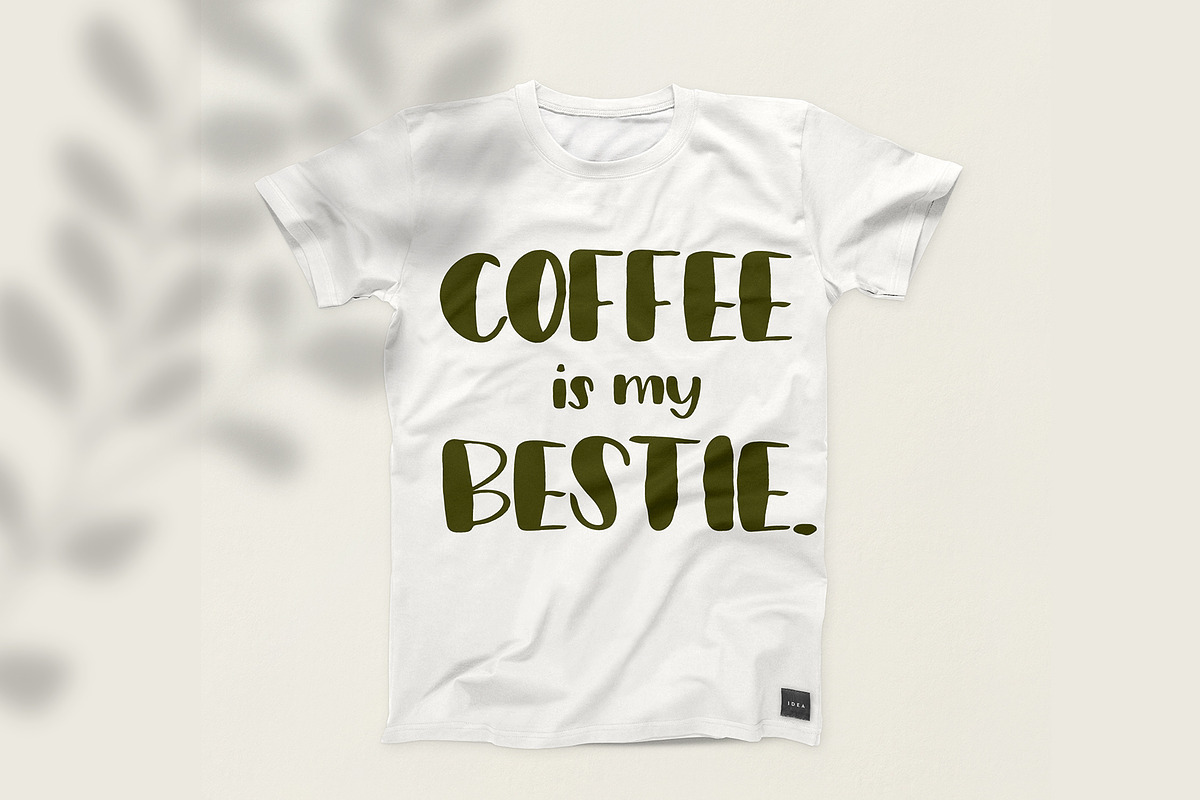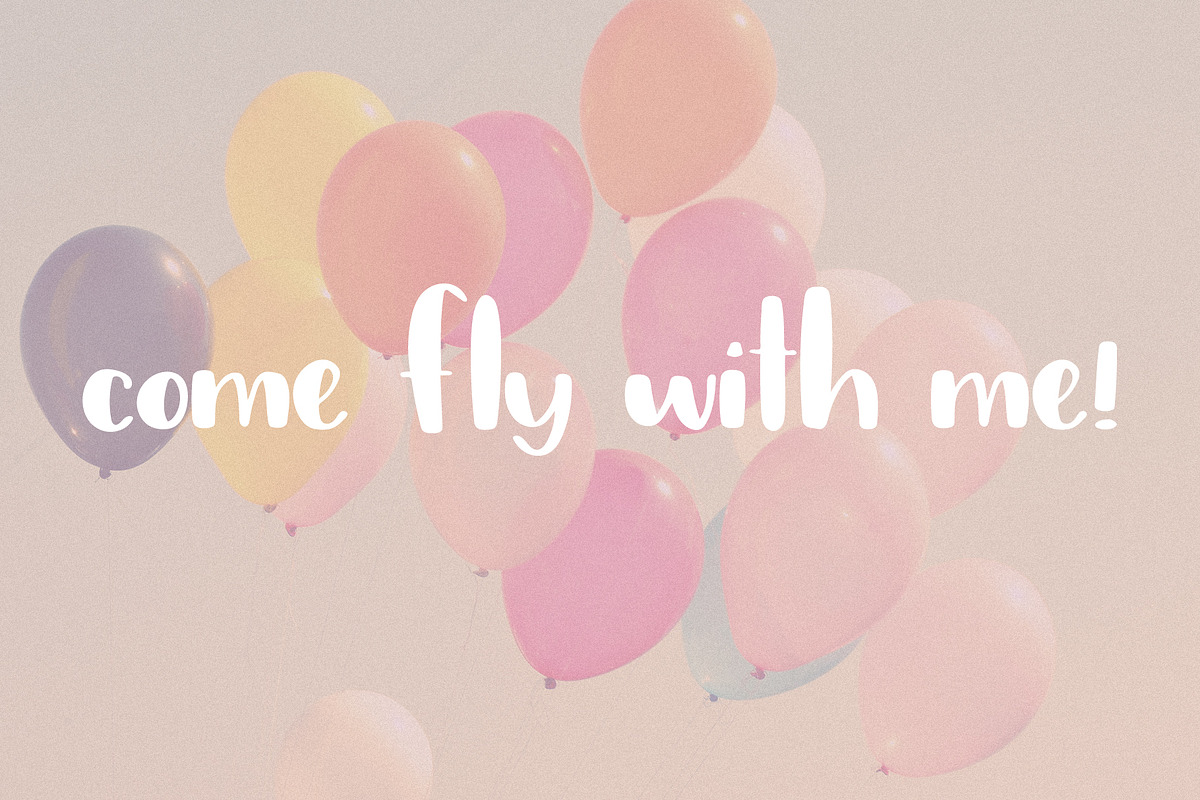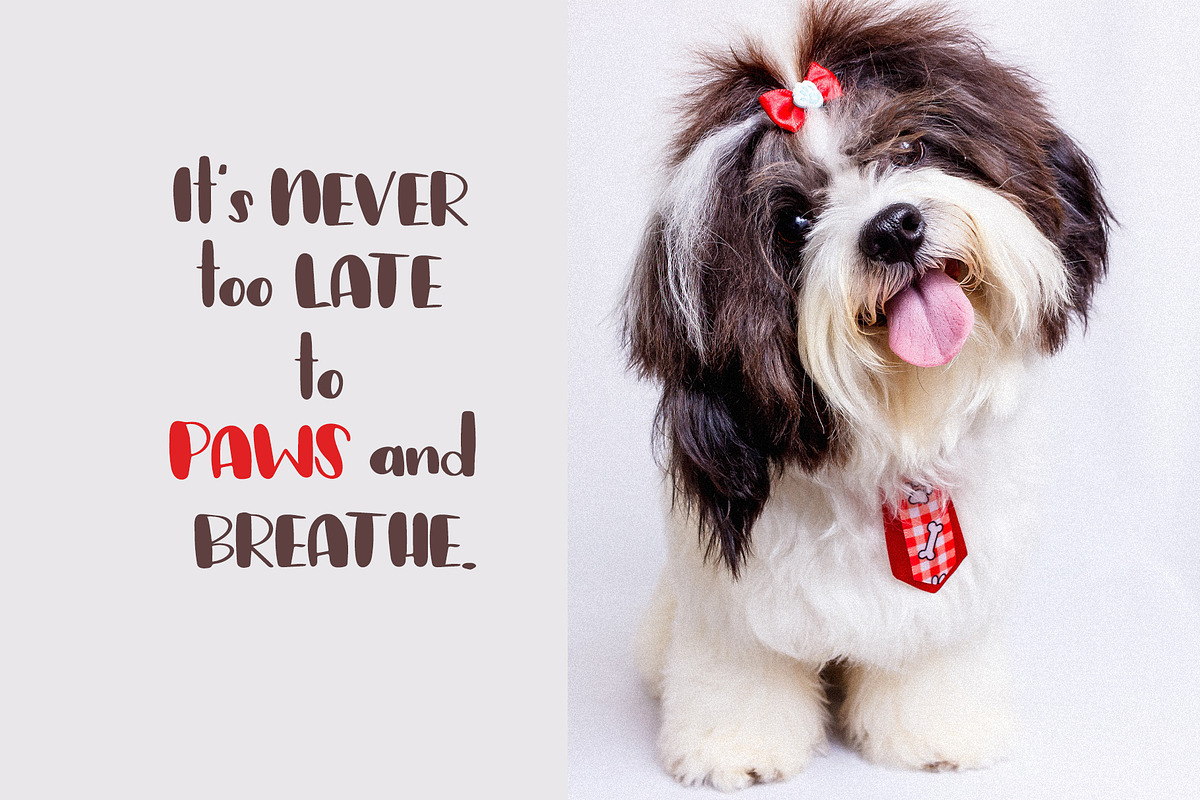
Jumpstart is a fun and bold hand-lettered font. This font is perfect for quotes, cards, blogs, logos, and more. The font has accent characters, uppercase, lowercase, punctuation, and numbers. Enjoy.